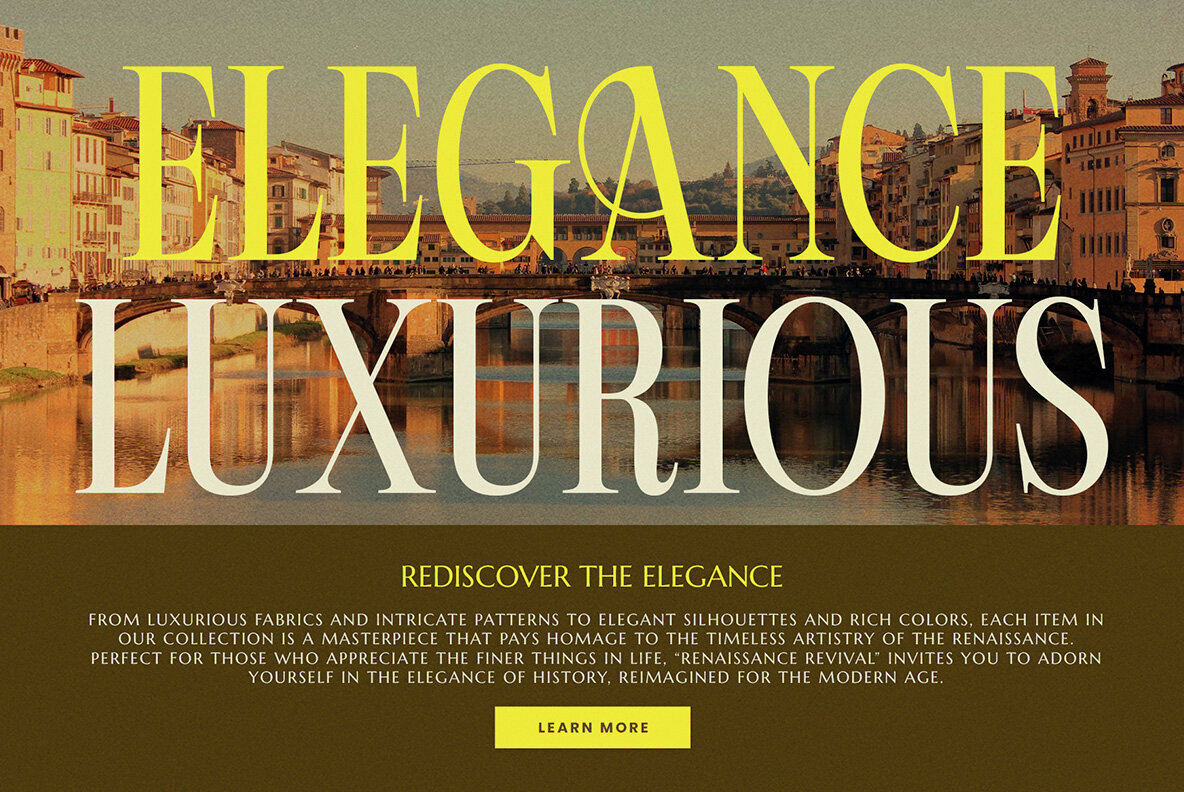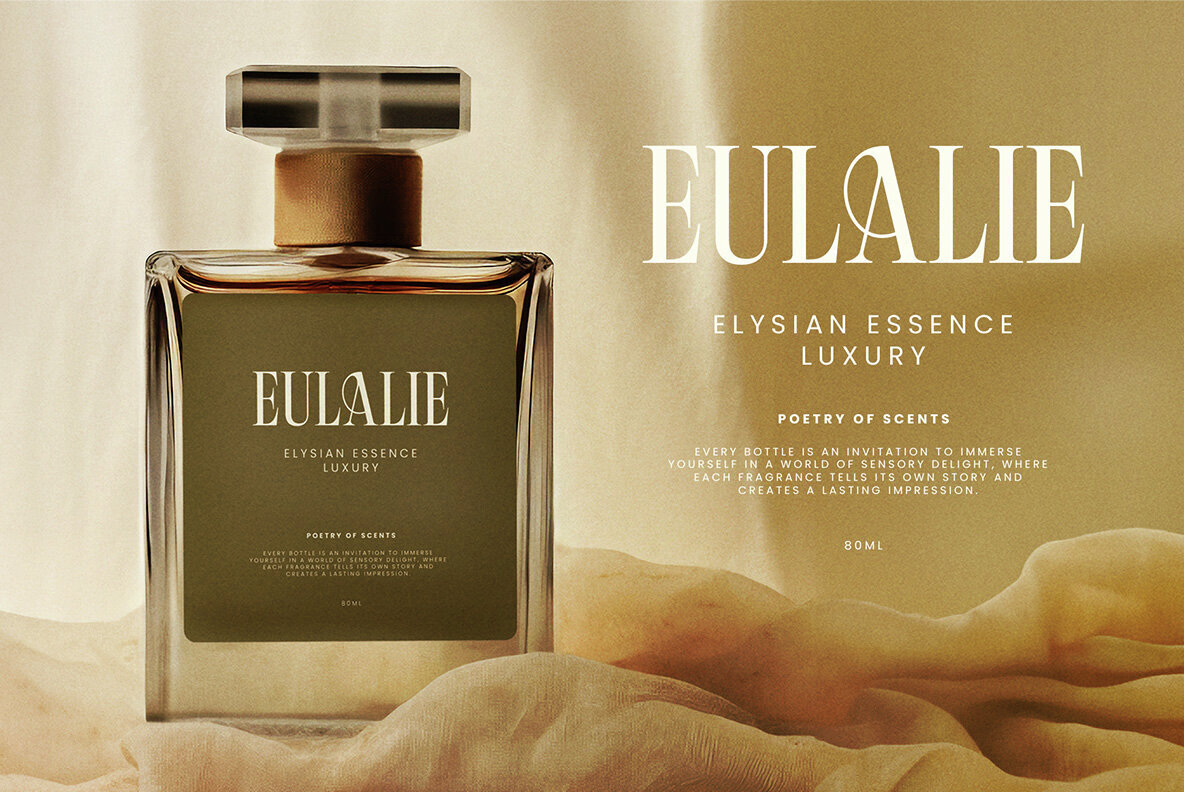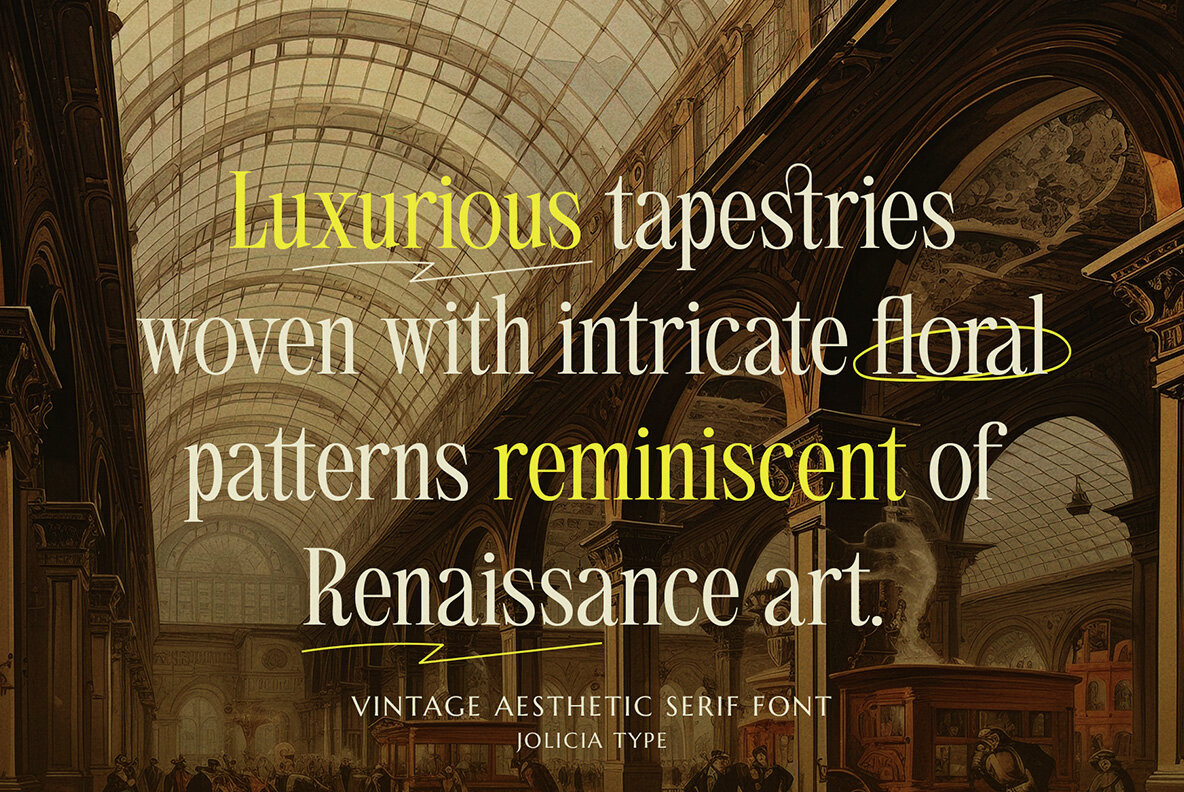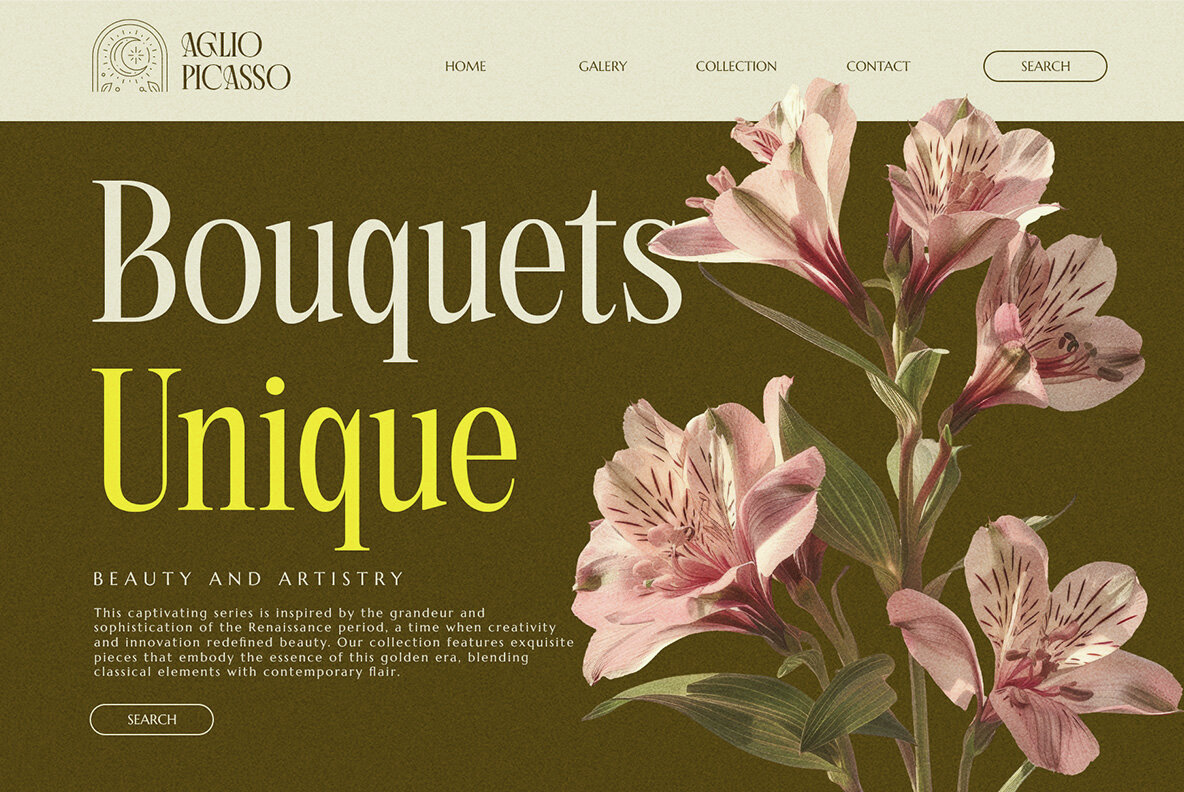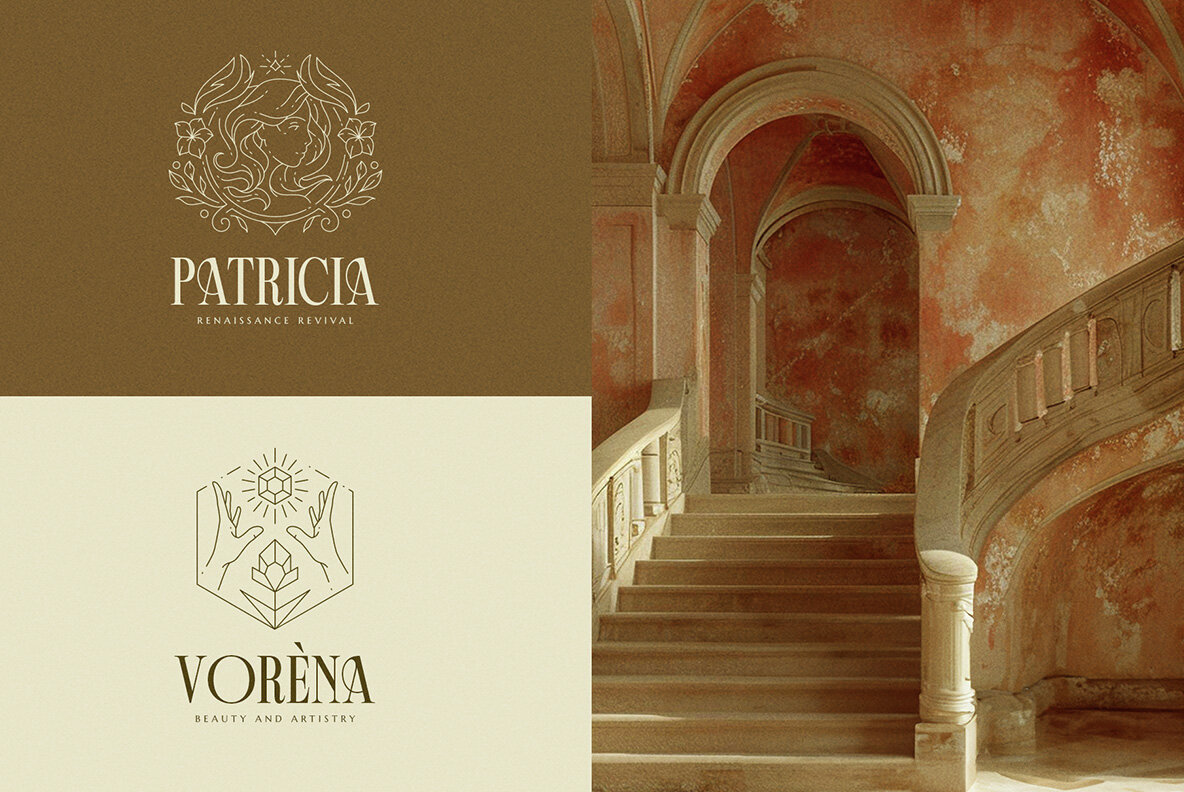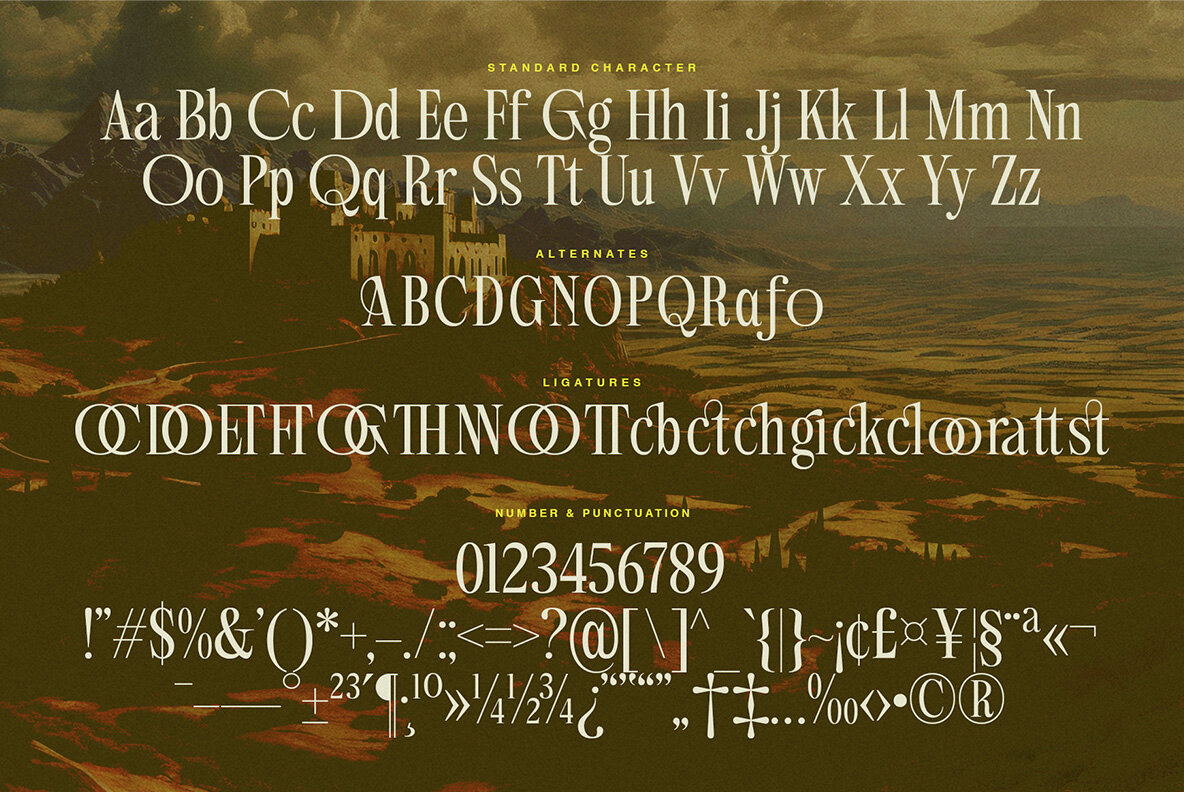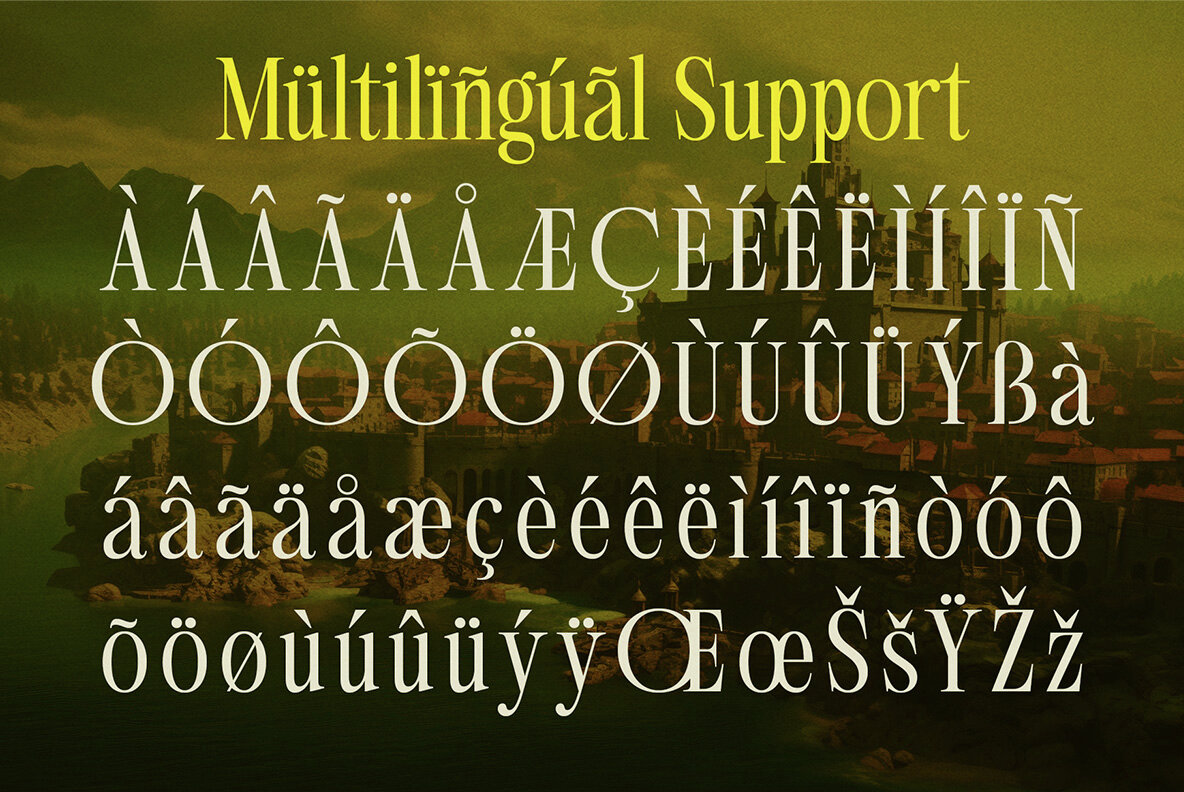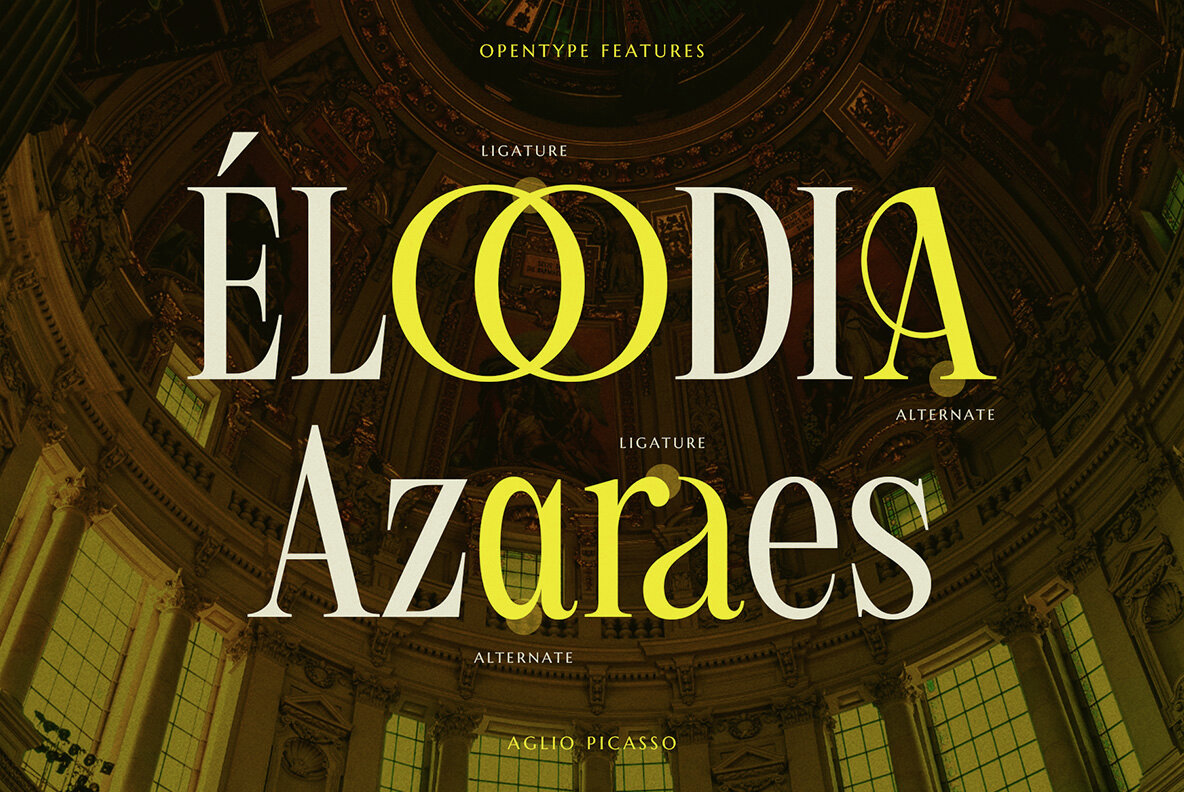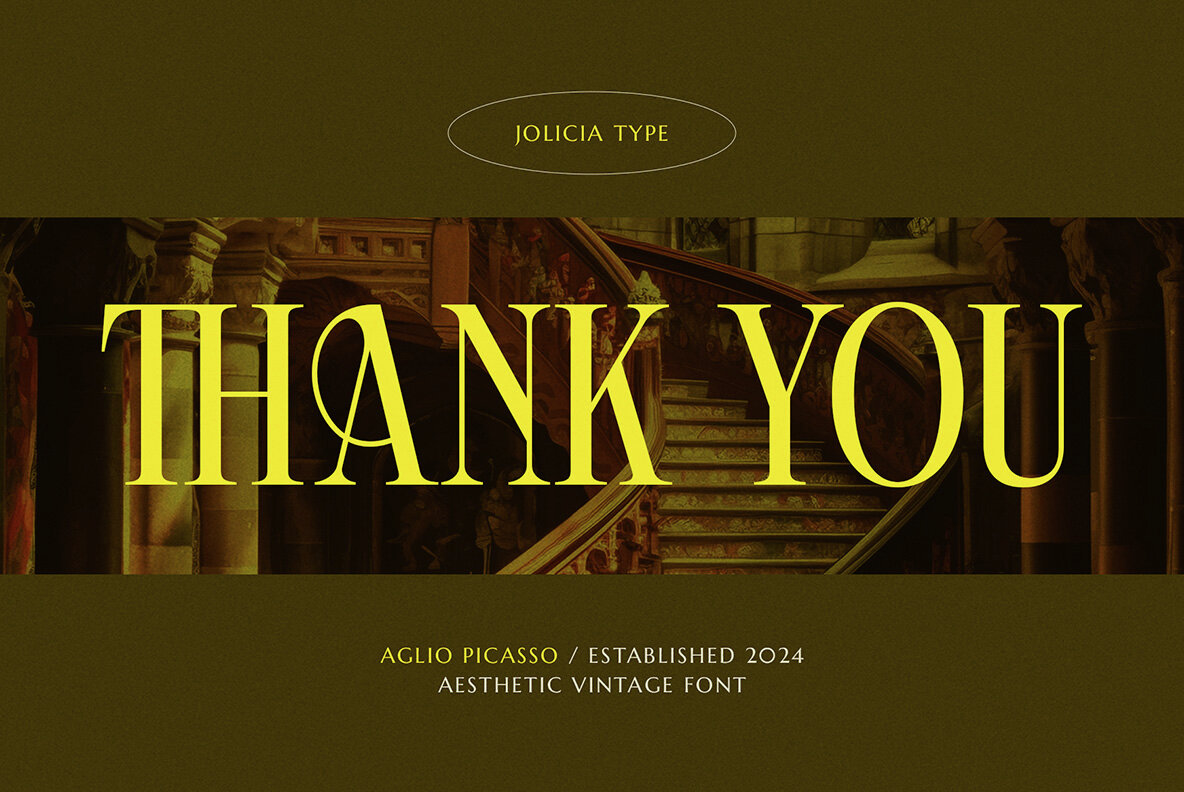
Aglio Picasso Font
Aglio Picasso
Say hello to Aglio Picasso, your new go-to vintage serif font with a dash of artistic flair. If you’re looking to add a bit of classic charm and a lot of style to your designs, this font’s got you covered. It’s perfect for those projects where you want to mix elegance with a touch of retro cool. Whether you’re working on branding, invitations, posters, or anything that needs that special vintage vibe, Aglio Picasso will make your work stand out. The smooth curves and unique details of this font not only look amazing but are also super easy to read, even in smaller sizes.